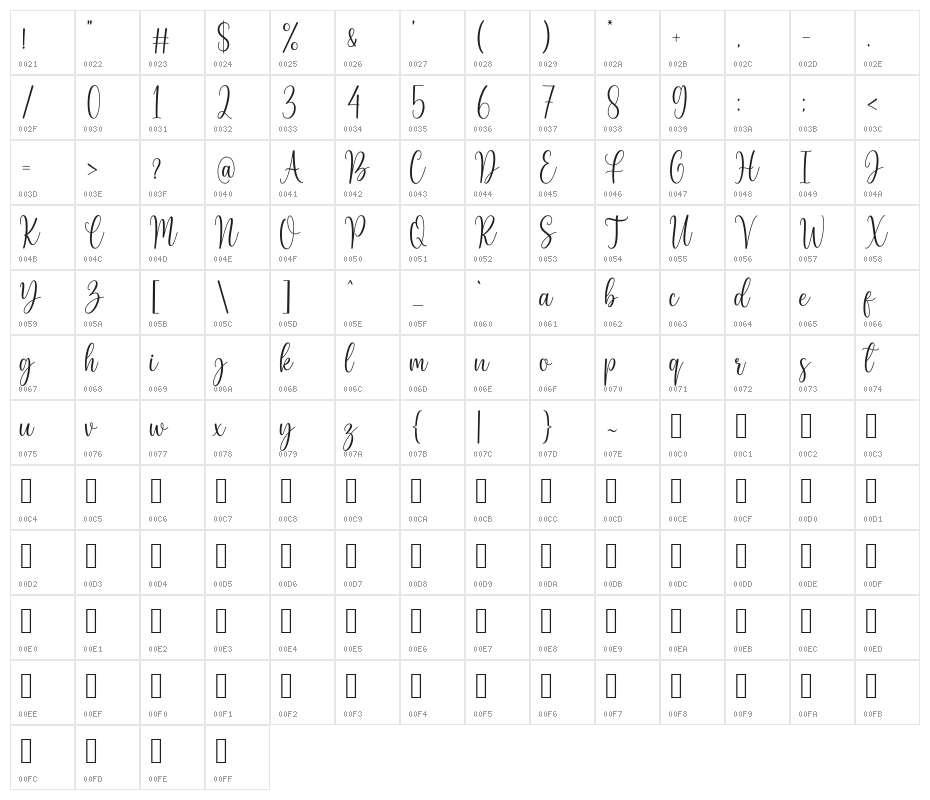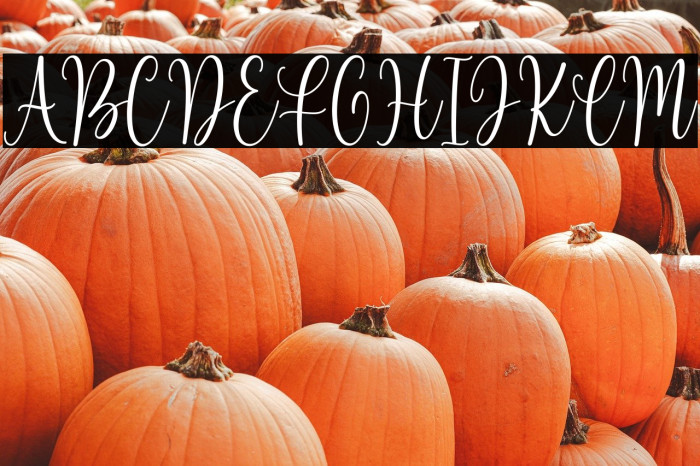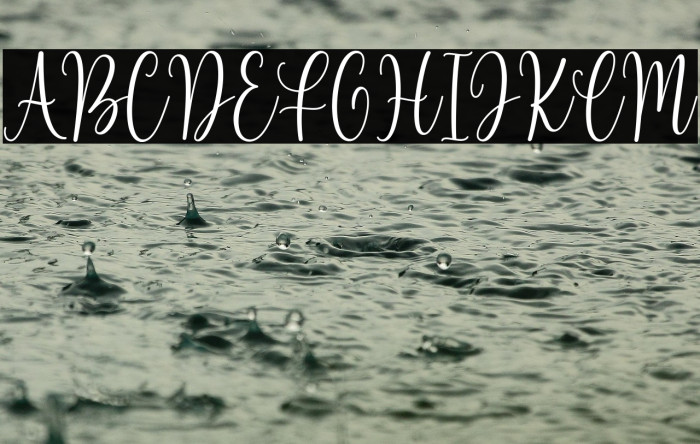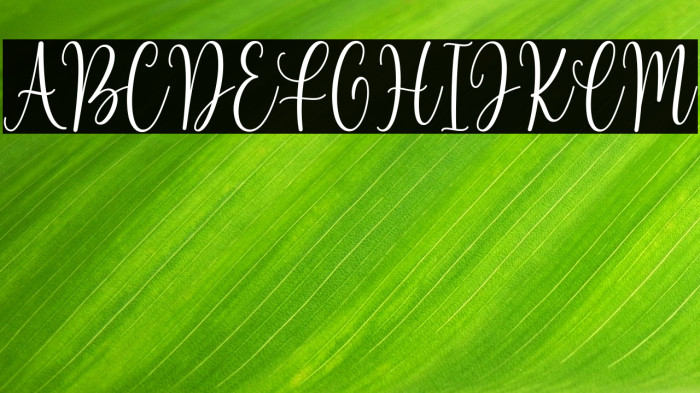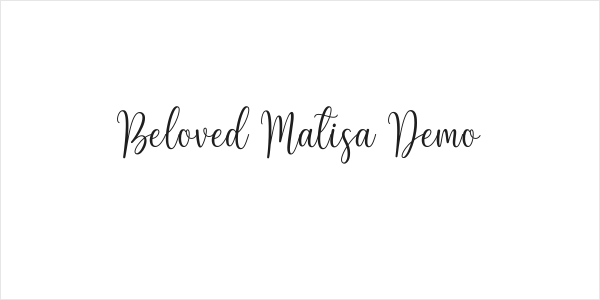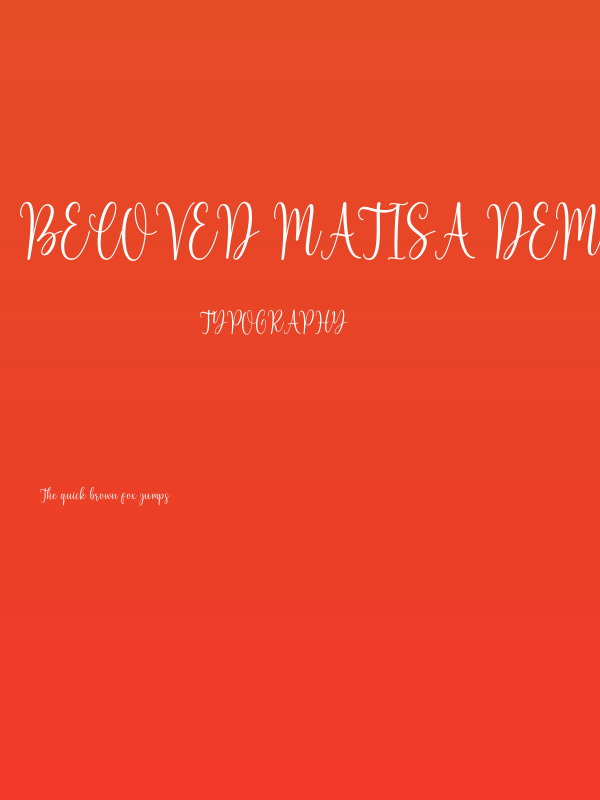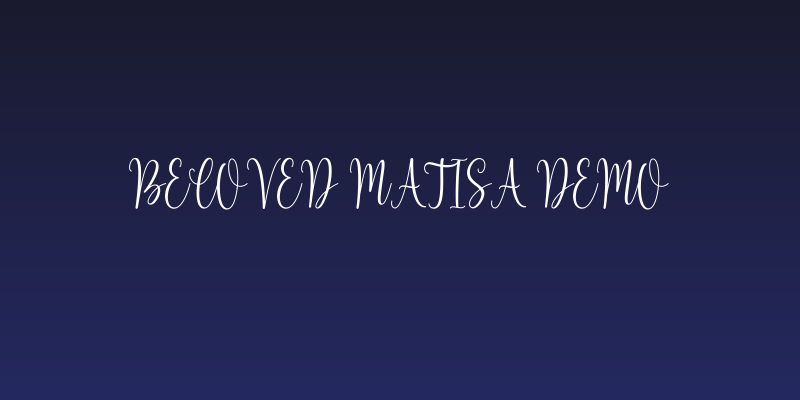
Beloved Matisa Demo Font
Beloved Matisa Demo Description
This font exudes a charming and elegant script style, characterized by its flowing, cursive letterforms. The uppercase letters are tall and graceful, with sweeping curves and loops that give a sense of movement and fluidity. The lowercase letters maintain a consistent style, featuring smooth connections and rounded forms that enhance readability while retaining a handwritten feel. The numerals are slender and align well with the overall aesthetic, providing a cohesive look. Special characters are thoughtfully designed to match the script's elegance, making this font versatile for various creative applications.
| Overall Style | Elegant, Handwritten |
| Proposed Projects | Ideal for wedding invitations, greeting cards, branding, and elegant packaging designs. |